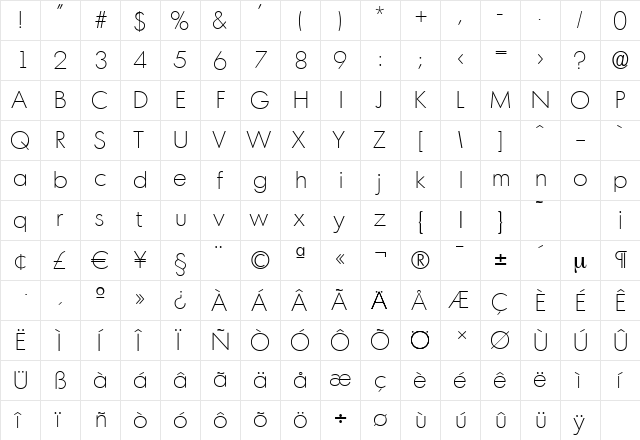
MontrealSerial-Xlight Regular
Design Context for MontrealSerial-Xlight Typeface
MontrealSerial-Xlight takes a measured approach to typography — its balanced proportions and neutral character make it a reliable workhorse for both digital and print work. Its slender proportions lend an understated elegance to any composition.